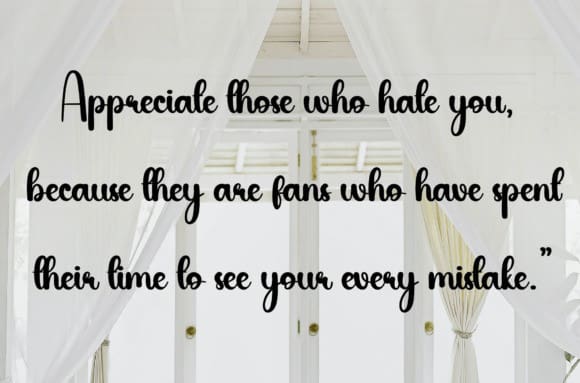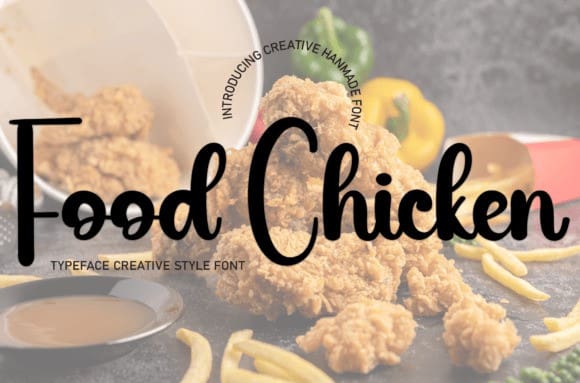
Food Chicken Font
Food Chicken Font is a sweet and friendly handwritten font. Fun and relaxed, this font is ideal for writing wedding invitations, cards, or any other design that might need a lovely touch!